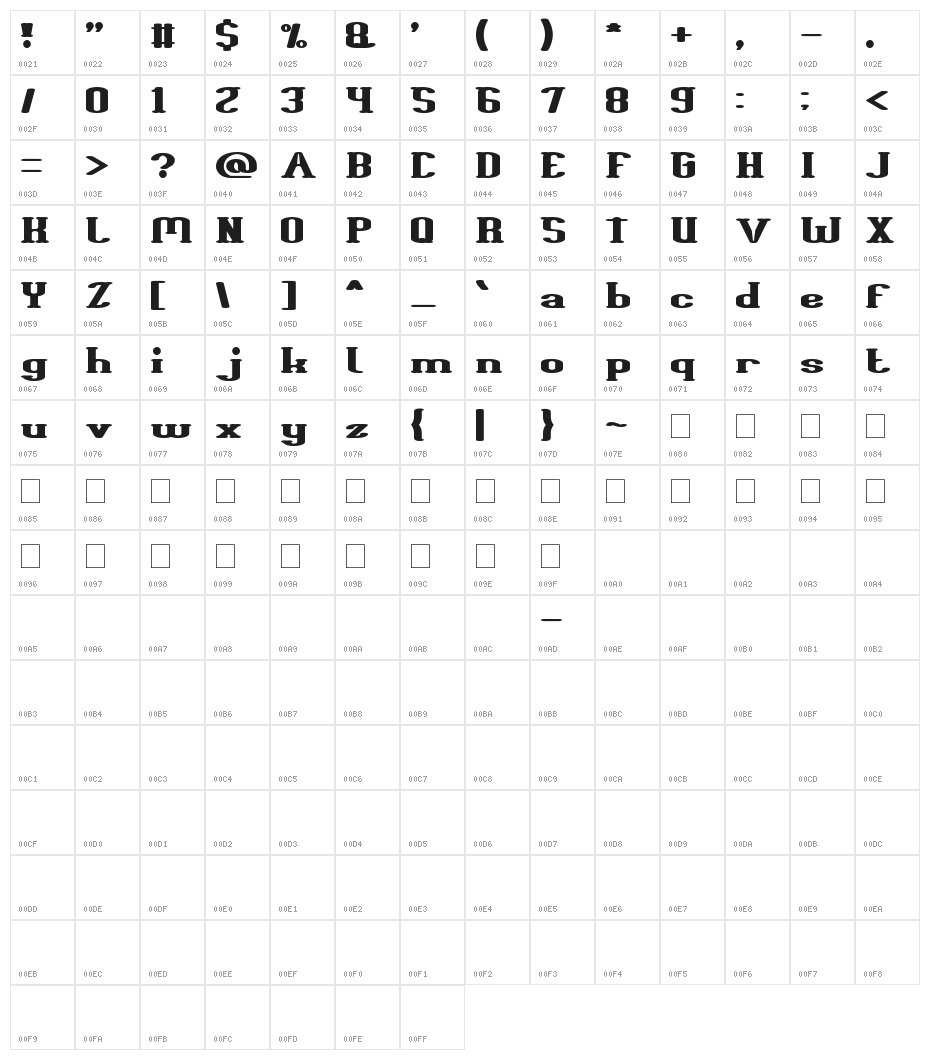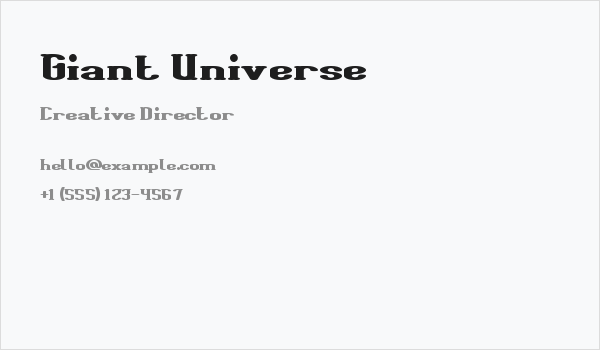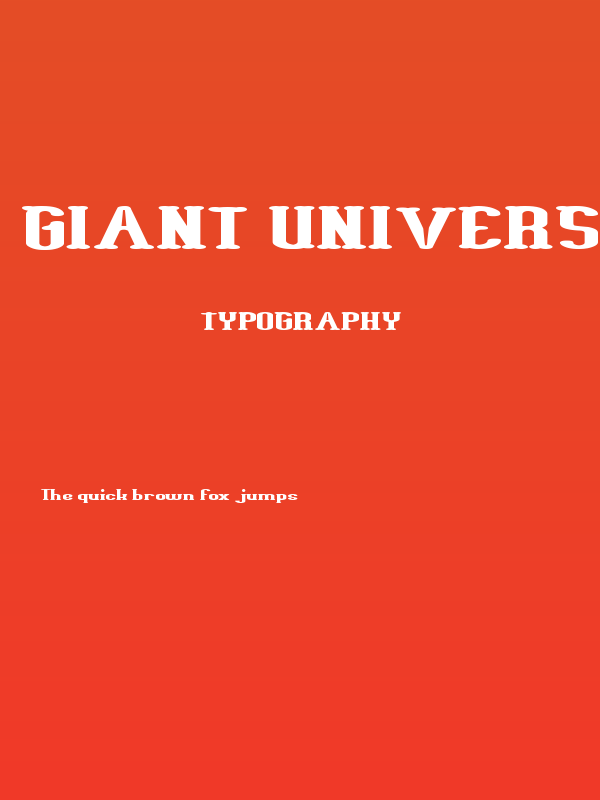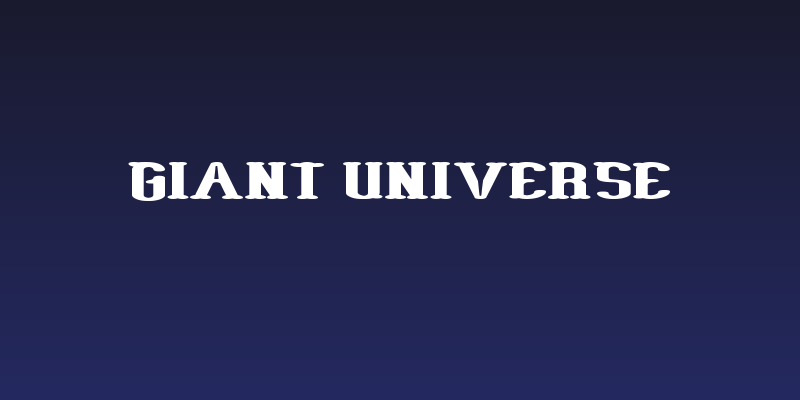
Giant Universe Font
Giant Universe Description
This font features a bold and robust design with a distinct slab serif style. The characters are characterized by thick, block-like serifs that give the font a strong and commanding presence. The uppercase letters are uniform in height, while the lowercase letters maintain a consistent baseline, enhancing readability. The numbers and special characters are designed to match the boldness of the alphabet, ensuring a cohesive look across all text. The overall appearance is both vintage and modern, making it versatile for various design needs.
| Overall Style | Vintage, Modern |
| Proposed Projects | Ideal for posters, branding, headlines, and any project requiring a bold statement. |